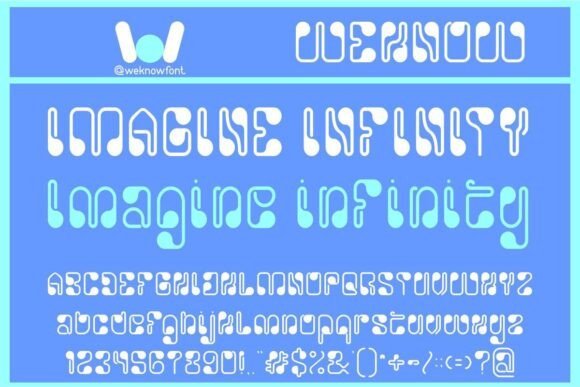
Enter the “Imagine Infinity Font,” a revolutionary typeface that merges the cutting-edge world of high-tech and biotech with the limitless imagination of techno-scifi. This dynamic font is designed to push the boundaries of your creative projects, offering a unique blend of modernity, whimsy, and artistic flair.
Imagine Infinity Font Key Features
- Font Family: Imagine Infinity, Infinity Caps
- Character Set: 1000+ glyphs, including Latin, Cyrillic, Greek, and Devanagari scripts
- Unique Characteristics: Features a unique blend of futuristic and minimalist styles, with infinite variations of each glyph
Designer Review: Imagine Infinity Font
At first glance, Imagine Infinity Font seems to be a promising choice for designers seeking a unique and eye-catching typography solution. ✨ Its distinctive, endless loop design effectively conveys a sense of boundless possibility, which can be particularly effective for projects that aim to evoke a sense of futurism or limitless potential.
The font’s versatility is another major strength, as it can be used in a wide range of contexts, from digital interfaces to print materials. The extensive character set, including various punctuation marks and symbols, also makes it a practical choice for designers who need a reliable font for everyday use.
However, there are some limitations to consider. ⚠️ For one, the font’s complexity can make it difficult to read at small font sizes, which may limit its use in certain applications. Additionally, the unique design of the font can be distracting in certain contexts, potentially detracting from the overall message or content being conveyed.
- Distinctive, endless loop design
- Extensive character set
- Versatile and effective for a range of contexts
- Difficulty reading at small font sizes
- Potential for distraction in certain contexts
Imagine Infinity Font is ideal for:
- Designing futuristic and sci-fi themed projects.
- Creating attention-grabbing headings and titles.
- Adding a touch of elegance and sophistication to your designs.